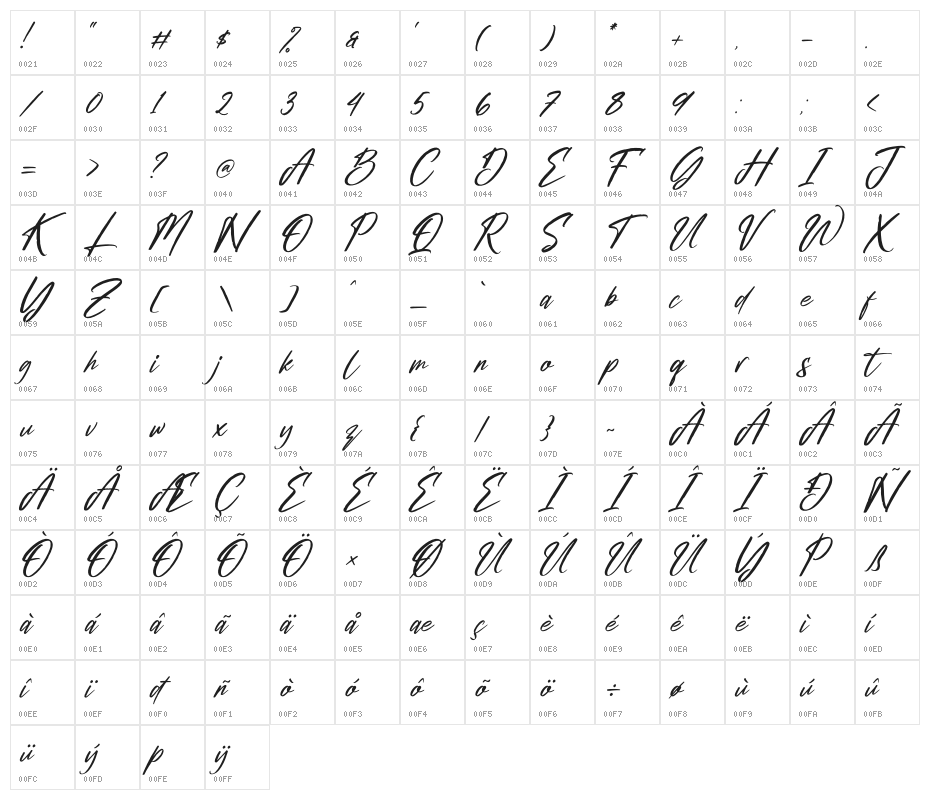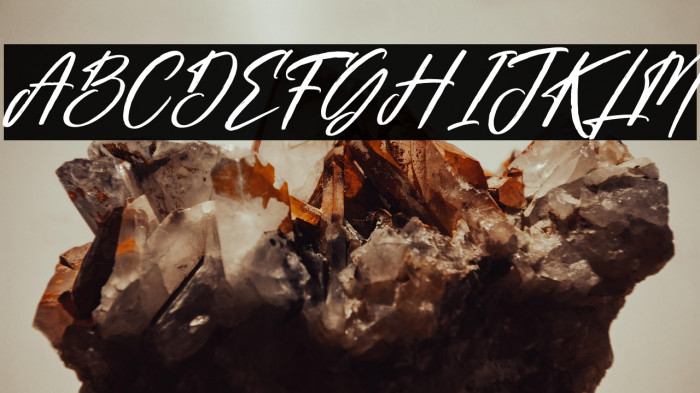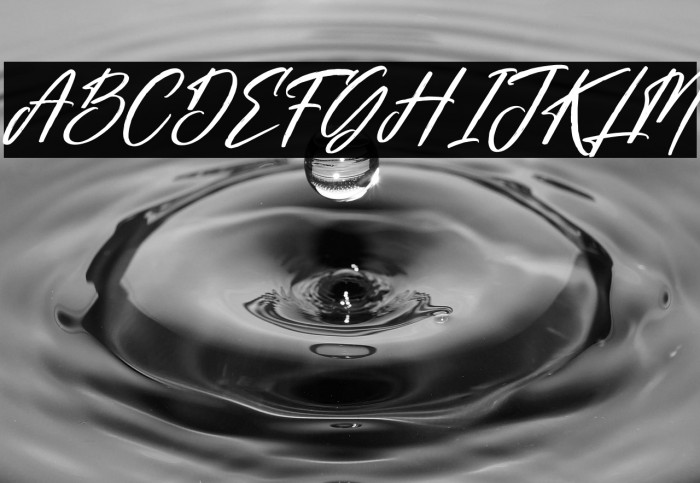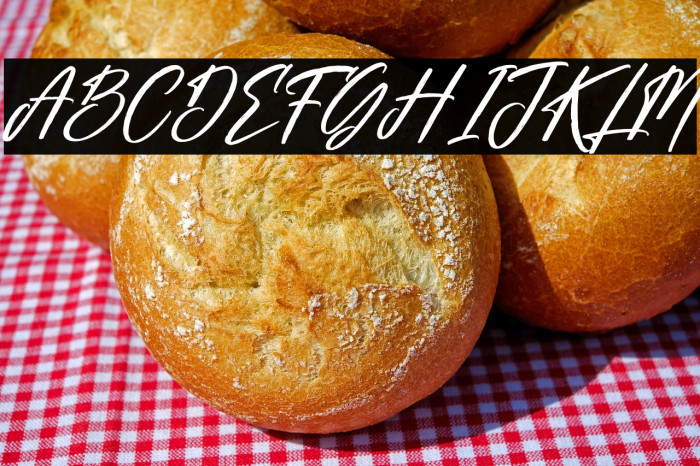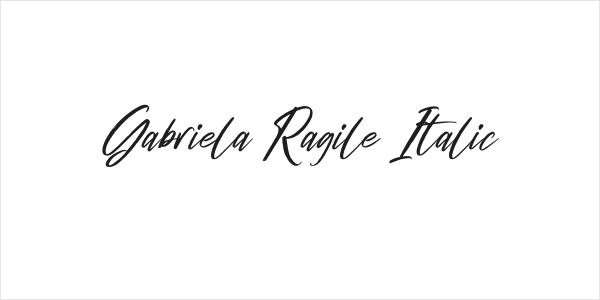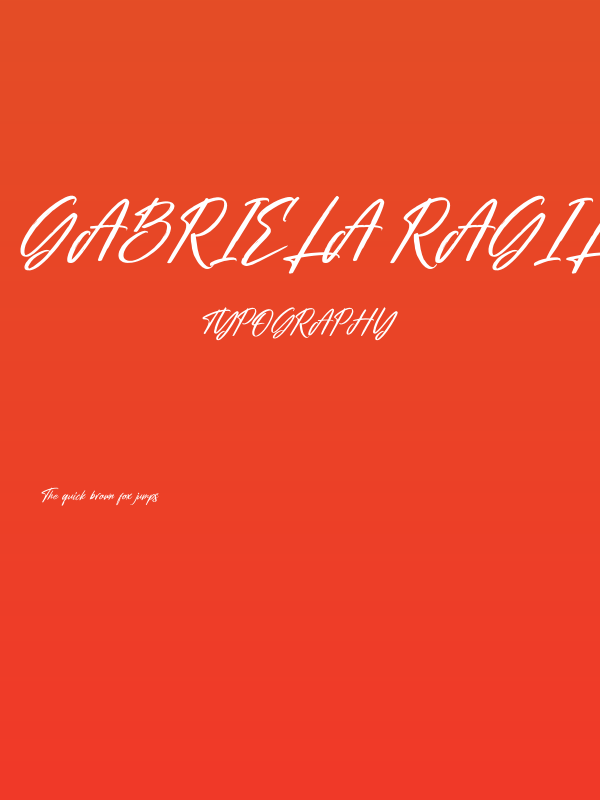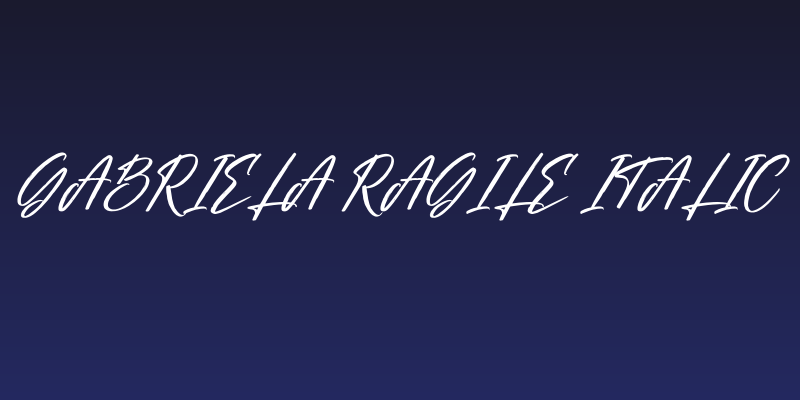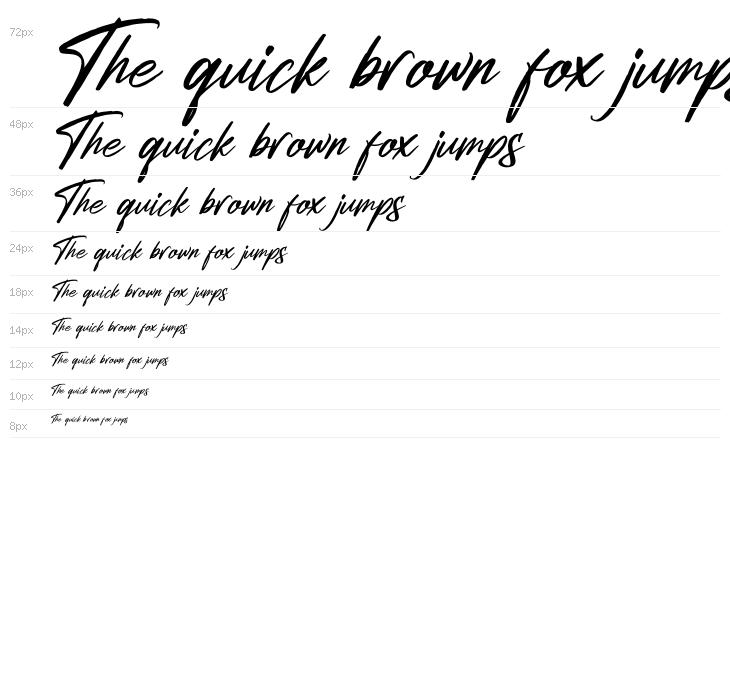
Gabriela Ragile Italic Font
Gabriela Ragile Italic Description
This font features an elegant and flowing script style, characterized by its italicized and cursive letterforms. The strokes are smooth and connected, giving it a handwritten appearance. The uppercase letters are bold and prominent, while the lowercase letters maintain a consistent flow, enhancing readability. The numbers and special characters are designed to match the overall script style, providing a cohesive look. The font's dynamic and expressive nature makes it suitable for creative and artistic projects.